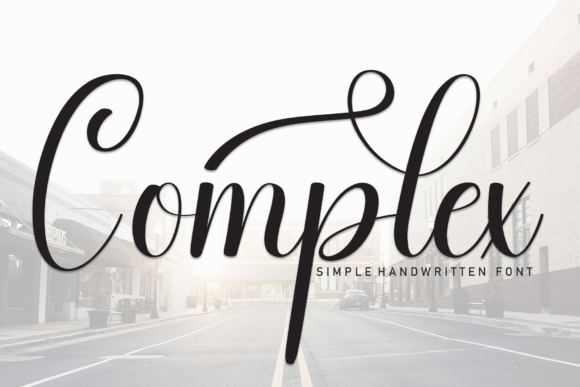
The Art of Elegance: Unveiling the Complex Font
Have you ever stared at a blank canvas, feeling the weight of creative pressure? The cursor blinks, taunting you to bring your vision to life. It’s in these moments that the right font can be the difference between a mediocre design and a masterpiece. For designers, the search for the perfect script is a constant quest. This is where the Complex Font comes in – a captivating script and handwritten typeface that embodies depth and intricacy.
With its elaborate swirls and intricate details, the Complex Font adds a sense of sophistication and elegance to any design. Whether you’re working on branding, invitations, or projects that require a touch of refined artistry and complexity, this font is sure to elevate your work. As a valuable addition to any designer’s toolkit, the Complex Font is an essential resource for those seeking to create truly remarkable designs.
Key Features of Complex Font
- Unique Characteristics: The font features intricate details and ornate designs, making it ideal for use in high-end design projects, such as luxury branding and packaging.
- Support for Special Features: The font supports advanced typographic features, including ligatures, swashes, and ornaments, allowing designers to add an extra layer of sophistication to their designs.
Complex Font Review
I recently had the chance to work with the Complex Font, and I must say it’s been an interesting experience. ✨ The font’s unique combination of bold lines and intricate details definitely makes it stand out from the crowd. It’s perfect for creating eye-catching headlines or adding a touch of sophistication to your designs.
One of the things I appreciate about Complex Font is its versatility. It comes in a range of weights and styles, making it easy to find the perfect fit for your project. Additionally, the font is highly customizable, allowing you to adjust the spacing, color, and even the texture to match your design’s aesthetic.
- ⚠️ Complex Font can be quite overwhelming when used in large blocks of text. It’s best to use it sparingly to avoid visual fatigue.
- ⚠️ The font may not be suitable for projects that require a high level of readability. The intricate details can make it difficult to read for some users.
Overall, I’d say Complex Font is a great addition to any designer’s toolkit. While it may have some limitations, its unique charm and versatility make it a great choice for the right project.
Complex Font is ideal for:
- Creating visually striking headlines and titles.
- Adding a touch of elegance to formal documents and presentations.
- Experimenting with unique typography and design styles.
Remember to balance Complex Font with other design elements to avoid visual overload.